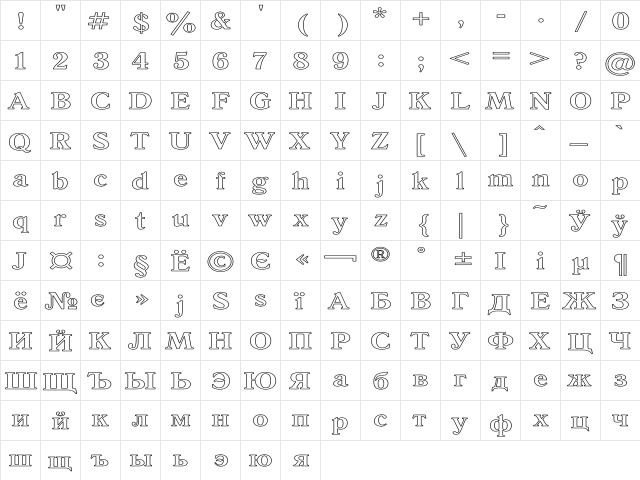
Antiqua HW Regular
Design Context for Antiqua HW Typeface
Antiqua HW offers clean, dependable letterforms without strong stylistic allegiance, making it a practical choice for designers who need flexibility.